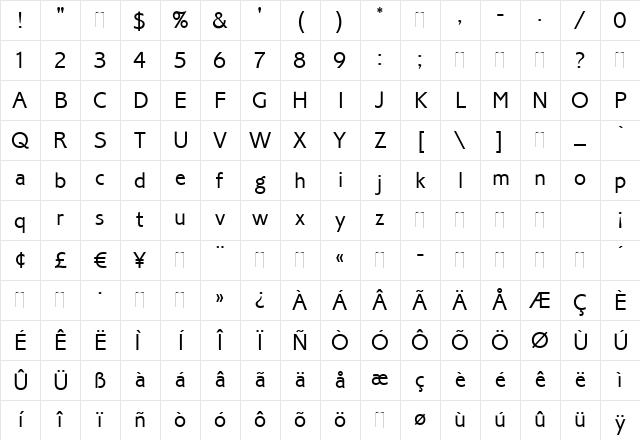
Corinthian Light Light Plain Free Font
Corinthian Light Light Plain
Style: Light Plain
Foundry: COPYRIGHT ESSELTE LETRASET LTD
Complete Corinthian Light Light Plain glyph index. Displaying only characters natively supported by Corinthian Light Light Plain font.
Design Context for Corinthian Light
Corinthian Light is a composed and adaptable typeface that performs quietly and consistently across a wide range of design contexts. Its slender proportions lend an understated elegance to any composition.
Who designed the Corinthian Light Light Plain font?